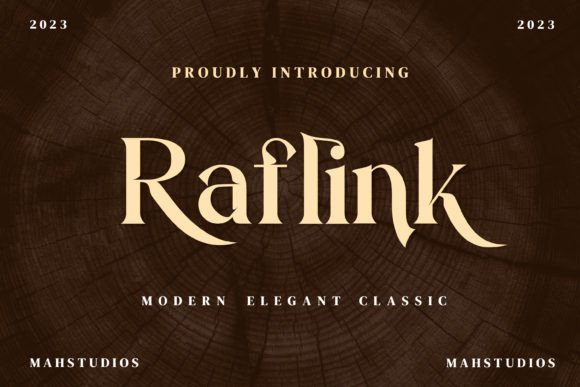
Journey through the resplendent realm of typography with Raflink, a captivating serif font crafted by the visionary minds at mahstudios. Immerse yourself in the world of written artistry, where words dance gracefully upon the page, adorned with an air of timeless elegance. Raflink is not merely a font; it's an invitation to explore the boundless expanse of creativity.
With its graceful curves and refined strokes, Raflink effortlessly elevates the ordinary into the extraordinary. Its meticulously crafted glyphs and alternates, accessible with effortless ease through PUA encoding, empower you to unleash your imagination and transform your digital creations into masterpieces of expression.
Raflink's inherent versatility knows no bounds. Whether you're a wordsmith weaving tales of enchantment, a coder conjuring digital dreamscapes, or a designer shaping visual symphonies, Raflink stands as your steadfast companion. Its presence enhances the impact of headlines, captivates readers in body text, and lends an air of sophistication to presentations.
Harness the power of Raflink to elevate your text editor into a sanctuary of creativity. Its meticulously designed characters dance across the screen, transforming mundane keystrokes into a symphony of visual artistry. Experience the joy of crafting documents that radiate elegance, where every word carries the weight of intention and purpose.
Beyond its practical applications, Raflink possesses an aesthetic charm that transcends mere functionality. Its timeless design evokes a sense of nostalgia, harkening back to an era of handwritten letters and carefully crafted manuscripts. With Raflink, your digital creations acquire a tangible, human touch, imbuing them with an emotional resonance that speaks to the heart.
Join the ranks of discerning creatives who have discovered the transformative power of Raflink. Allow your imagination to soar as you explore the limitless possibilities of expression. Discover the joy of crafting digital masterpieces that captivate, inspire, and leave an indelible mark on the hearts of your audience.